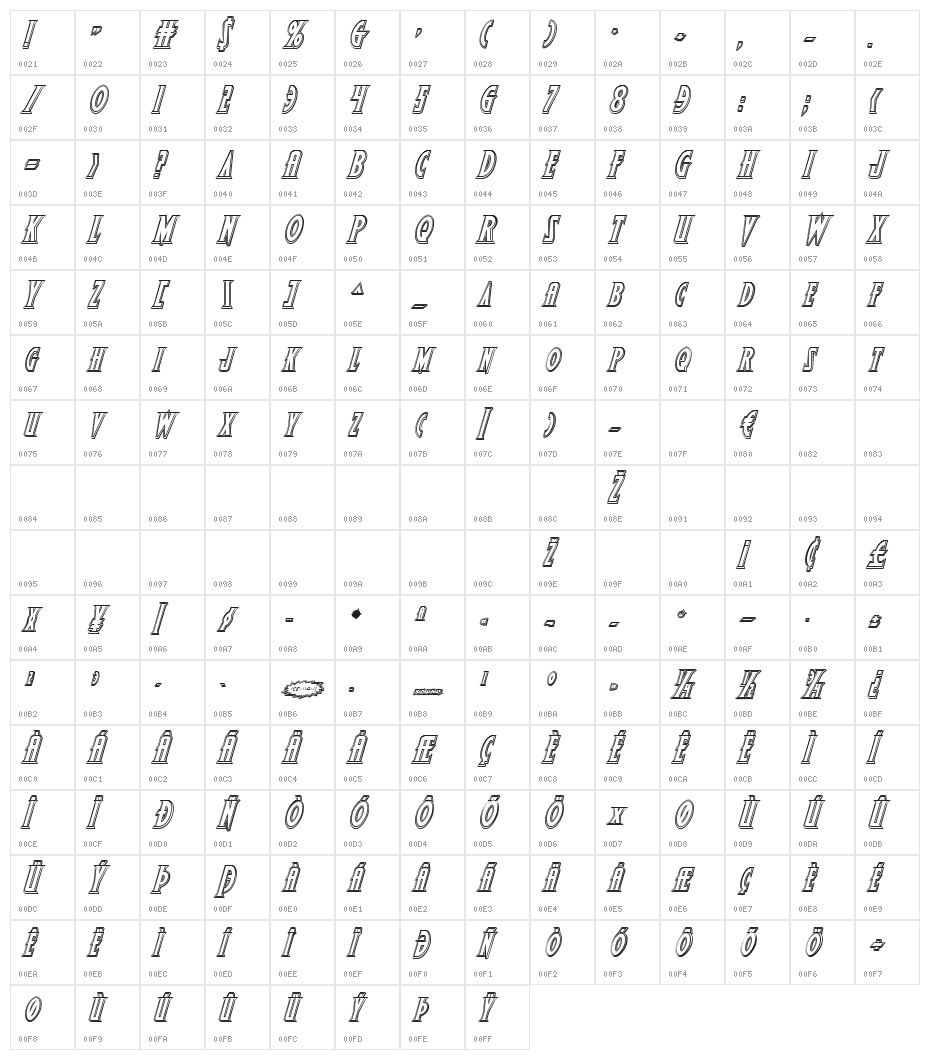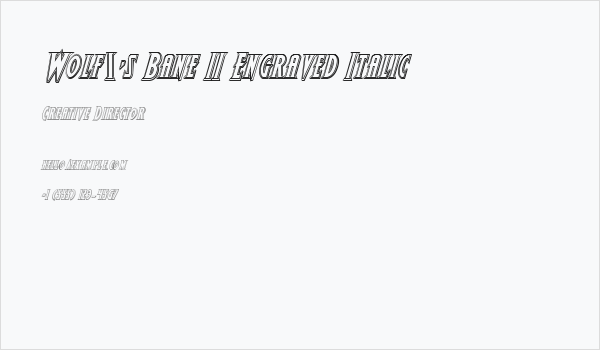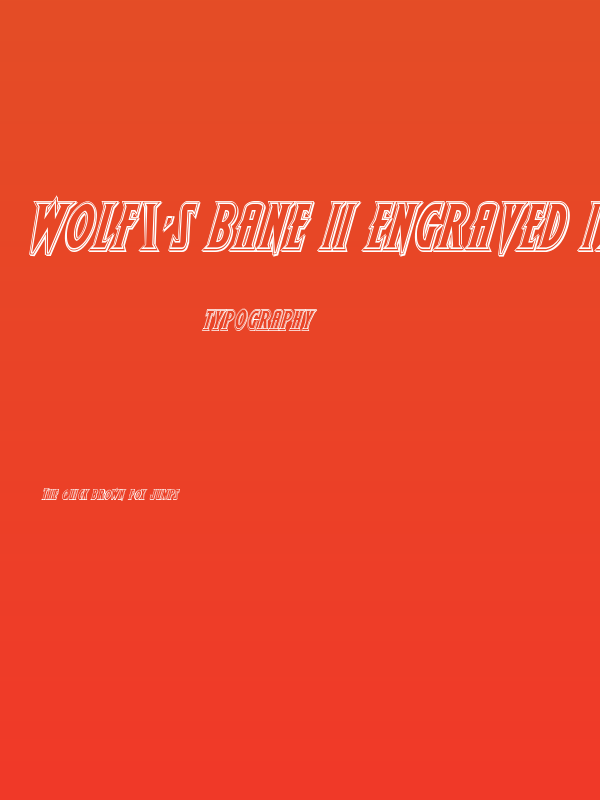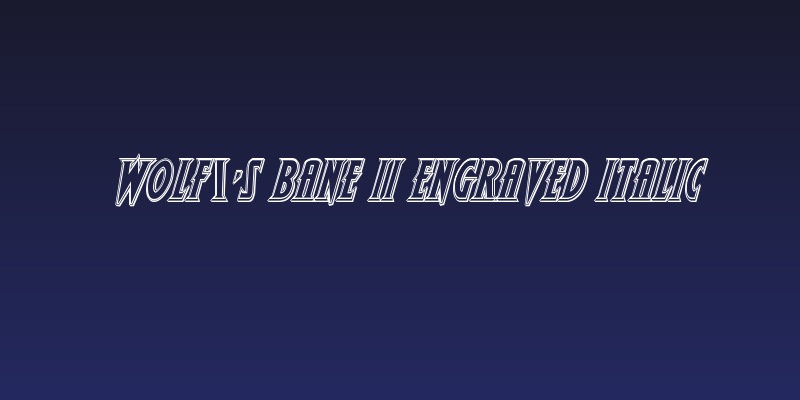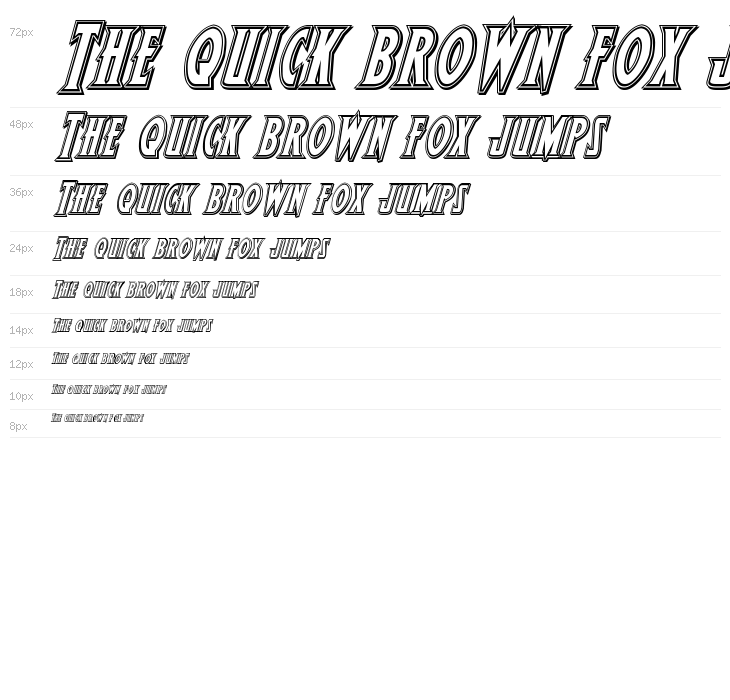
Wolf's Bane II Engraved Italic Font
Wolf's Bane II Engraved Italic Description
This font features a bold, engraved style with a distinct italic slant, giving it a dynamic and energetic appearance. The characters are outlined with a double line, creating a three-dimensional effect that adds depth and interest. The uppercase and lowercase letters maintain a consistent style, with sharp angles and a slightly condensed form. The numbers and special characters follow the same design principles, ensuring uniformity across all glyphs. This font's unique style makes it stand out, suitable for projects that require a strong visual impact.
| Proposed Projects | Ideal for logos, posters, and headlines that need a bold and striking appearance. |